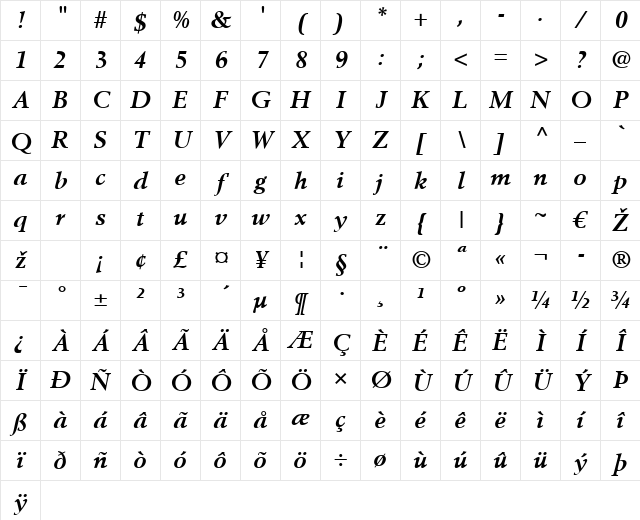
Berling LT Roman Bold Italic
Complete Berling LT Roman Bold Italic glyph index. Displaying only characters natively supported by Berling LT Roman Bold Italic font.
Design Context for Berling LT Roman
Berling LT Roman is a composed and adaptable typeface that performs quietly and consistently across a wide range of design contexts. The slanted form adds forward momentum and visual energy. Its bold stroke weight gives it real presence on the page.
Pro Tip: Use Berling LT Roman for emphasis, pull quotes, and subheadings where its slanted energy can add rhythm to the layout.